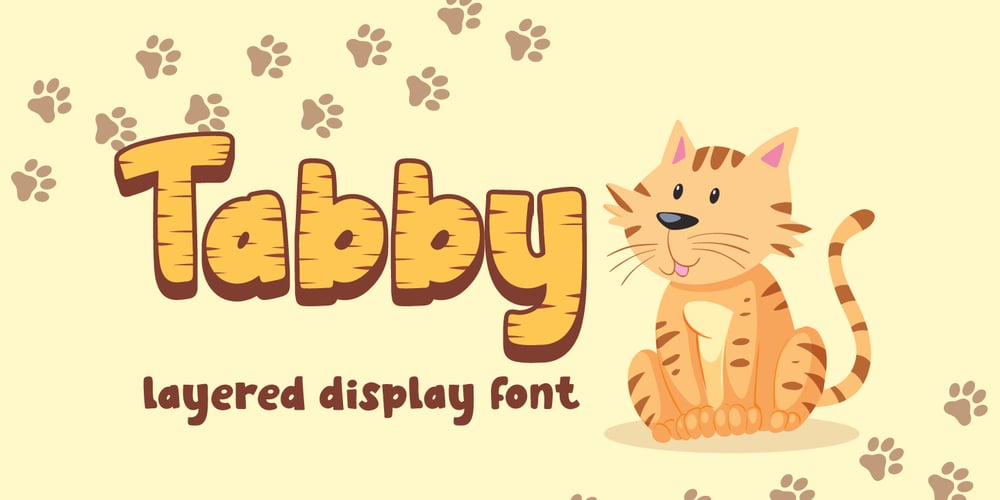
Tabby
Tabby font
Tabby Font Family was designed by Fadli Ramadhan Iskandar and published by Attype Studio. Tabby contains 3 styles and family package options. Tabby is display font inspired by connection about human and cat. It has 3 font style, It’s super easy to use 3D effect with Tabby family font.Three style Font: Regular, Display & ShadowTabby perfectly match for any product like book cover, t-shirt, branding, promotion, social media post, quotes, crafting, photography and more. What’s included:- Multilingual Support —Hope you enjoy with our font!Attype Studio